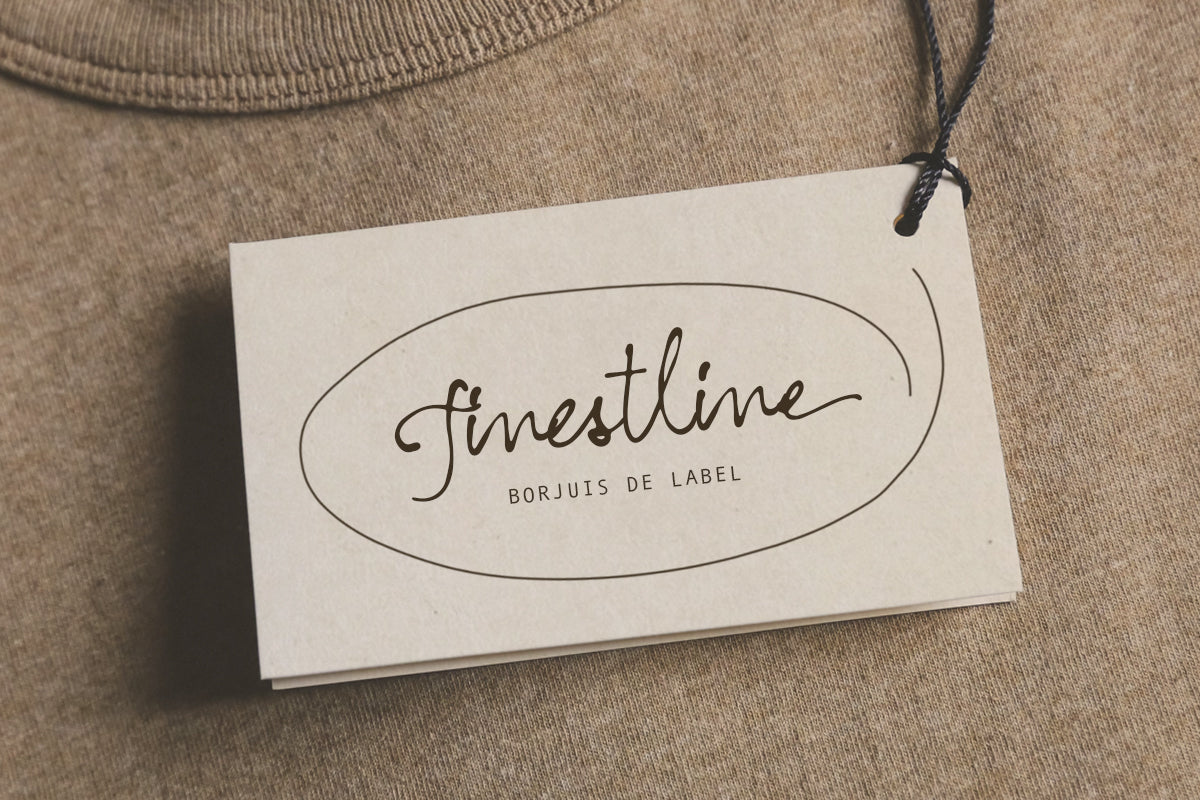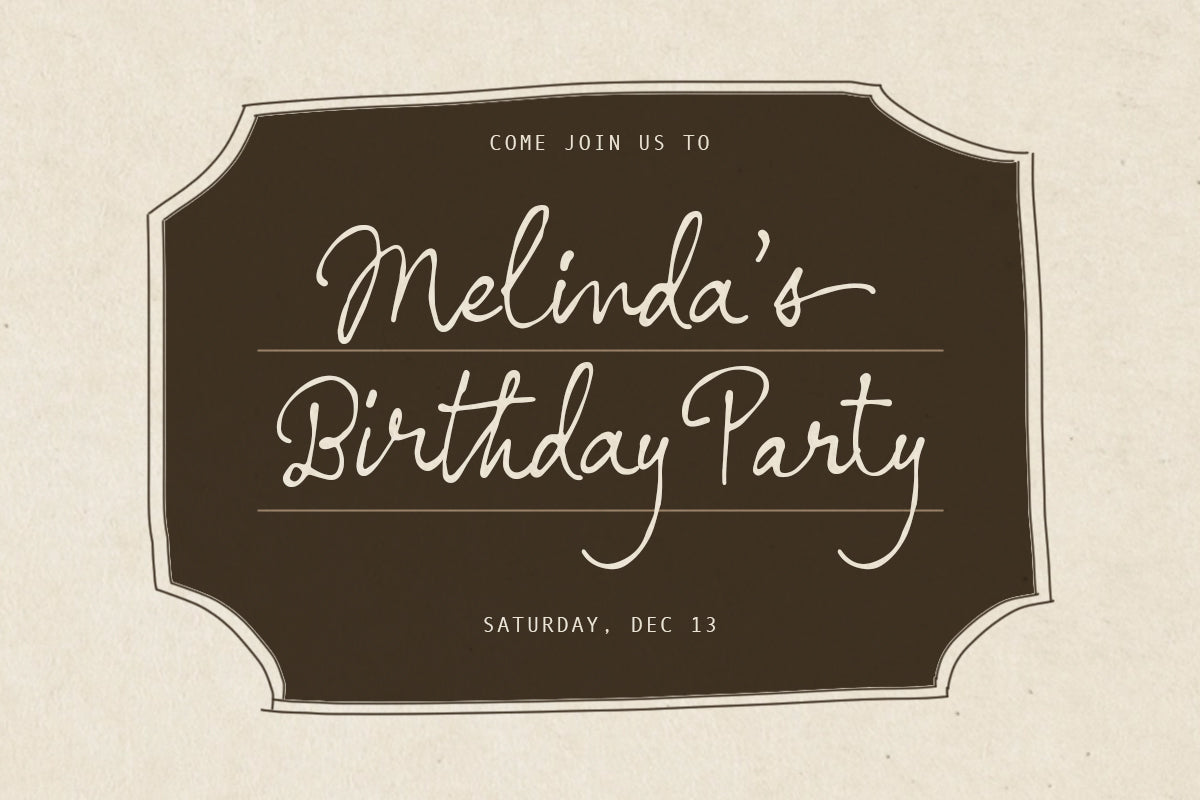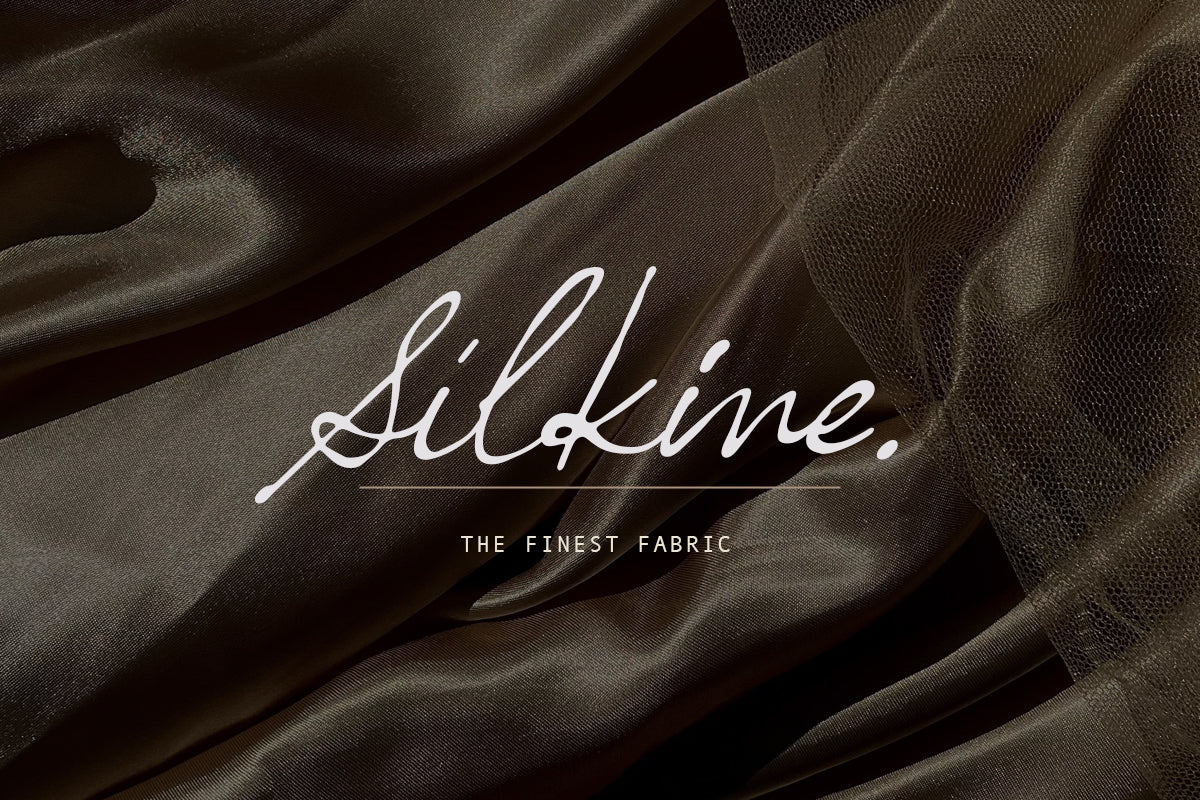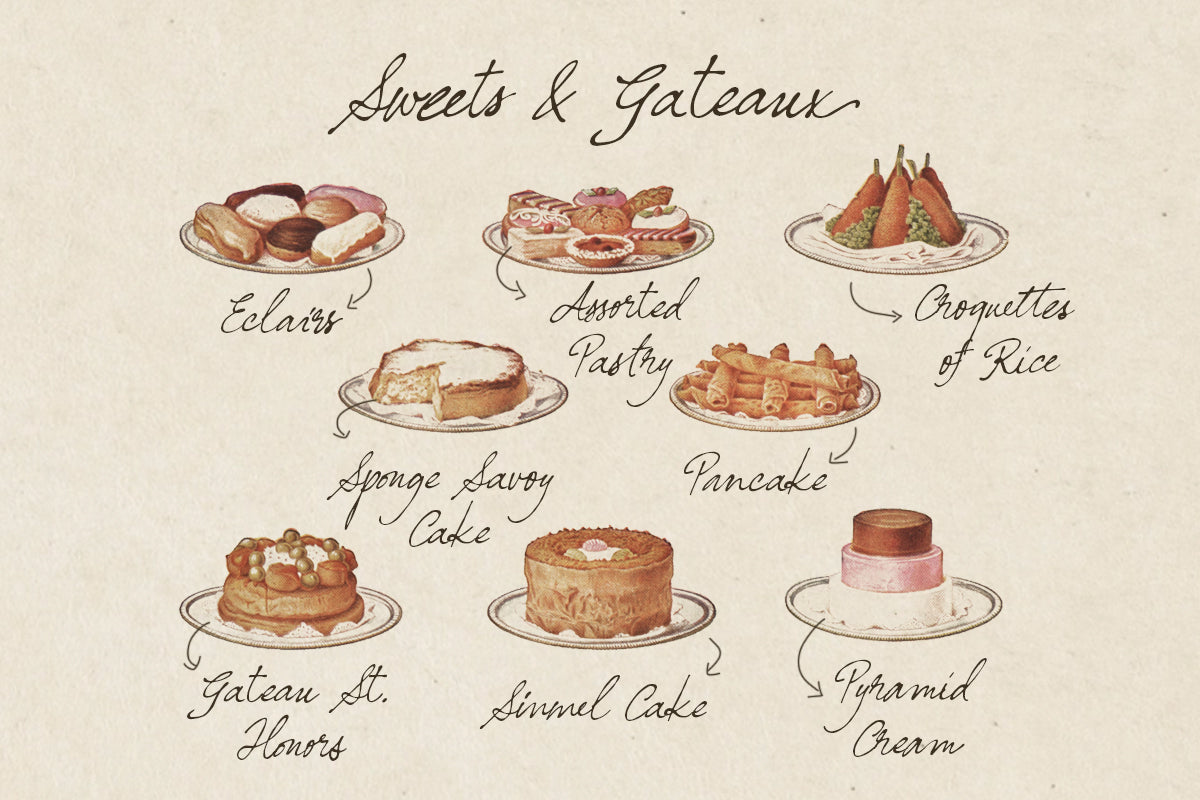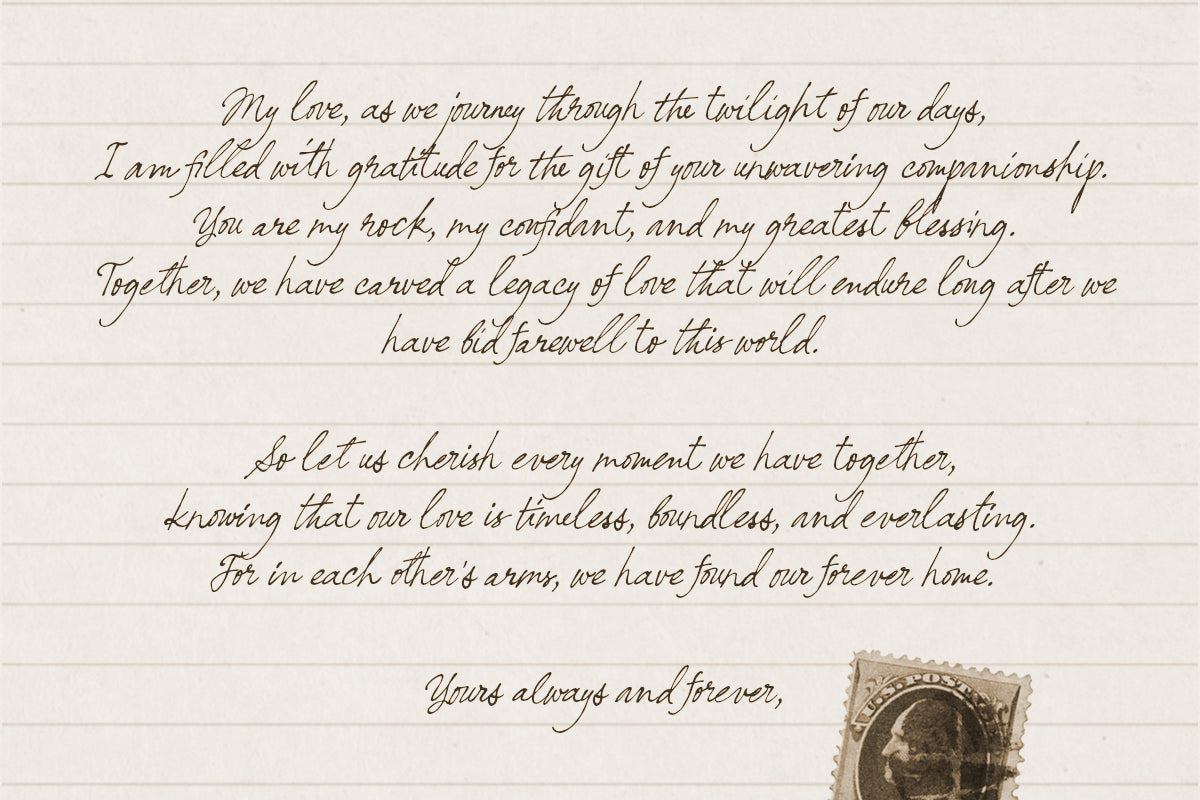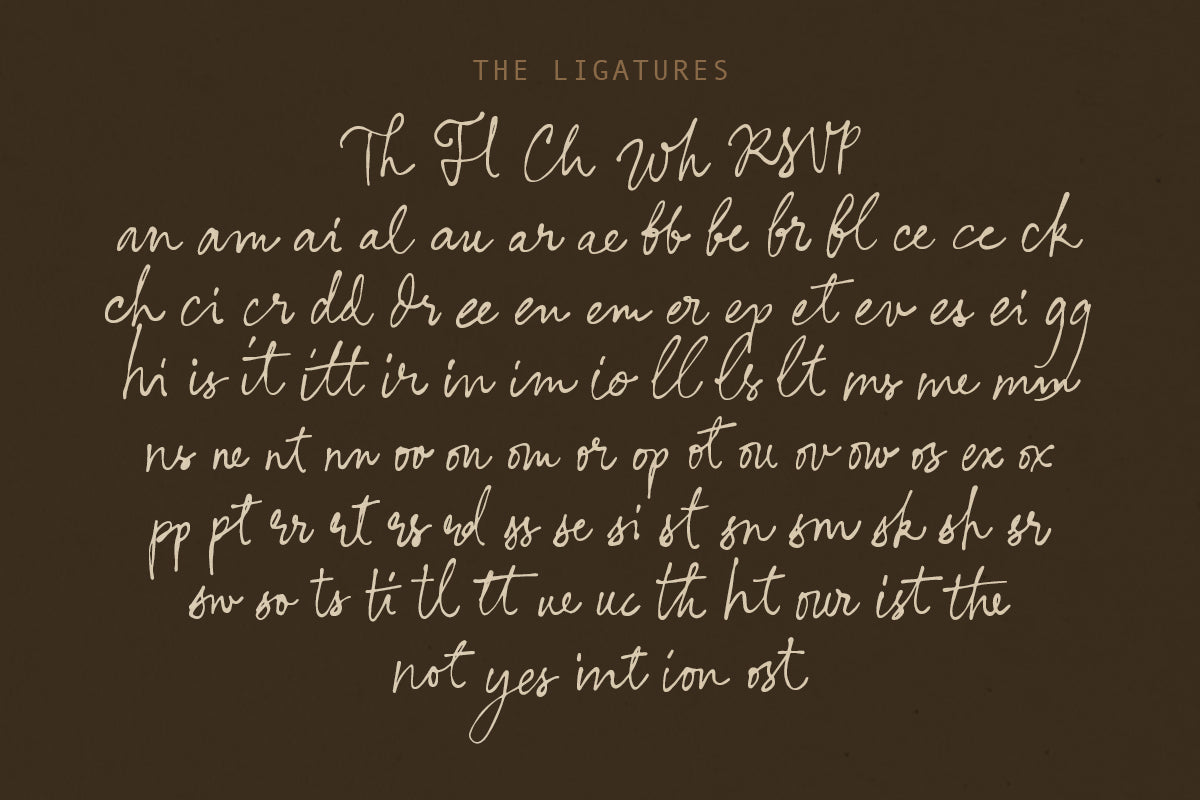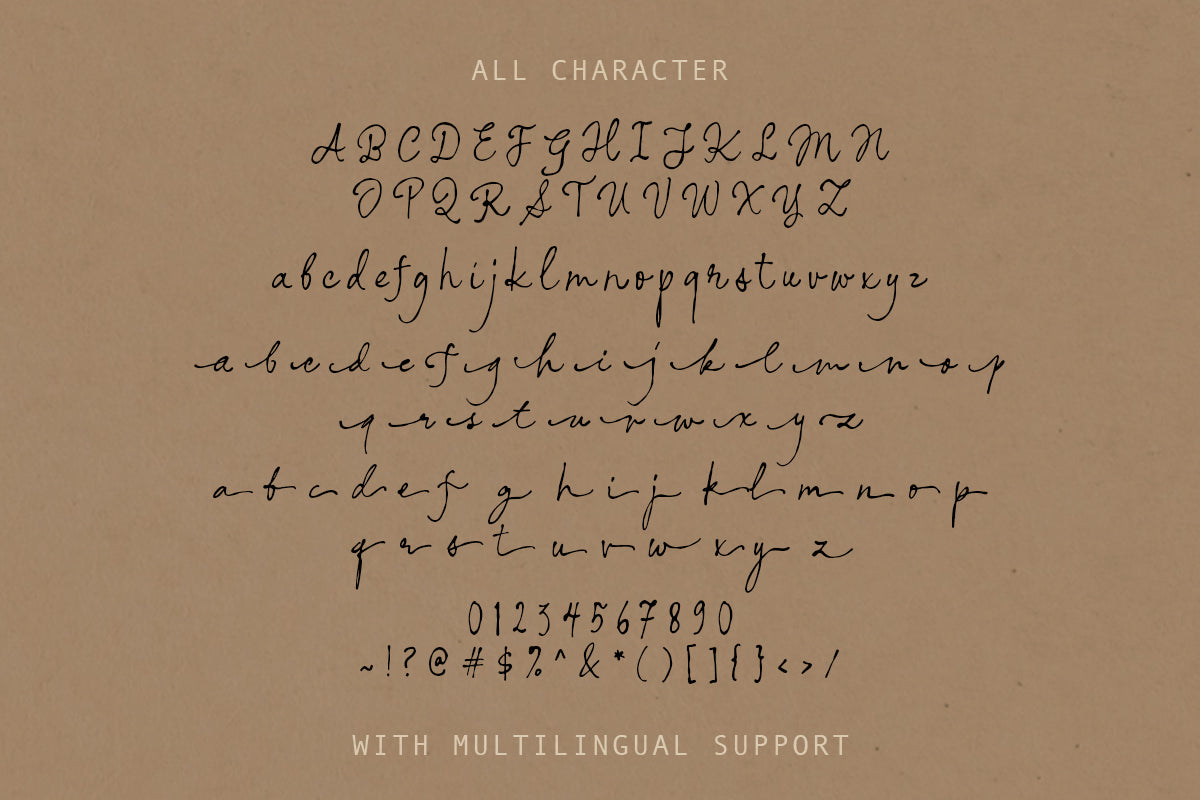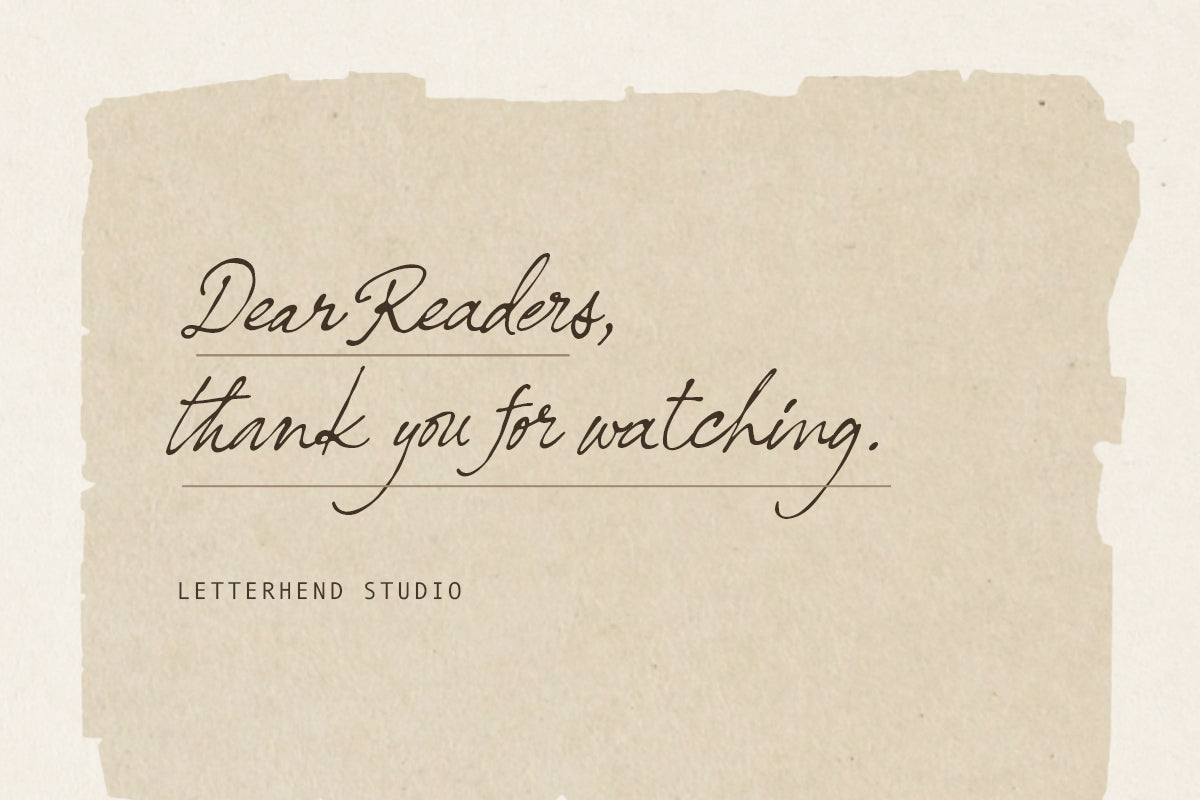
Nostalgic Words
Nostalgic Words is a vintage signature script inspired by natural handwritten strokes. This typeface includes ligatures and alternates, adding character and authenticity to any design. It is ideally suited for use in logos, headlines, signage, and various formal applications such as invitations, labels, magazines, greeting or wedding cards, packaging, fashion, makeup, stationery, novels, and any advertising purpose.
Uppercase & lowercase
Numbers and punctuation
Alternates & Ligatures
Multilingual Support